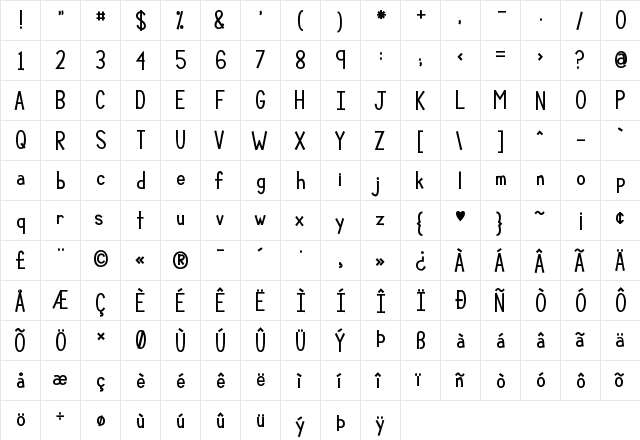
KG Compassion Big Regular
| Foundry | Kimberly Geswein |
| Designer | Kimberly Geswein |
Design Context for KG Compassion Big Typeface
KG Compassion Big offers clean, dependable letterforms without strong stylistic allegiance, making it a practical choice for designers who need flexibility.